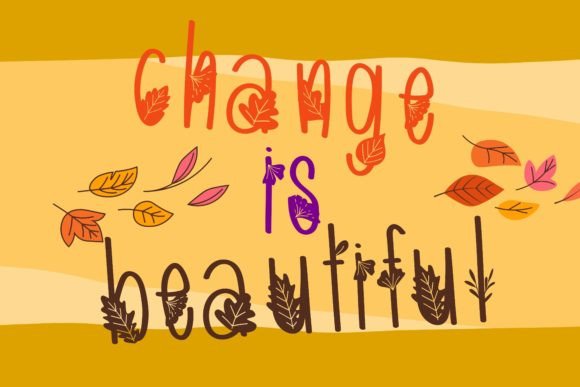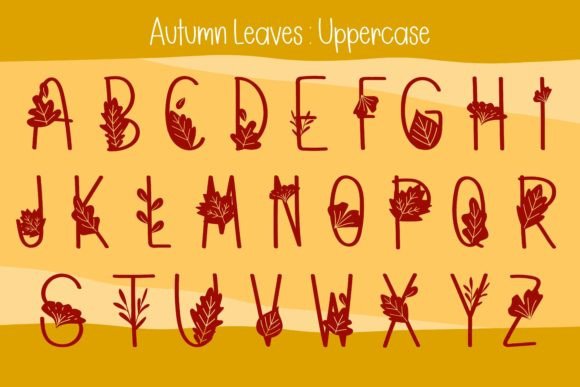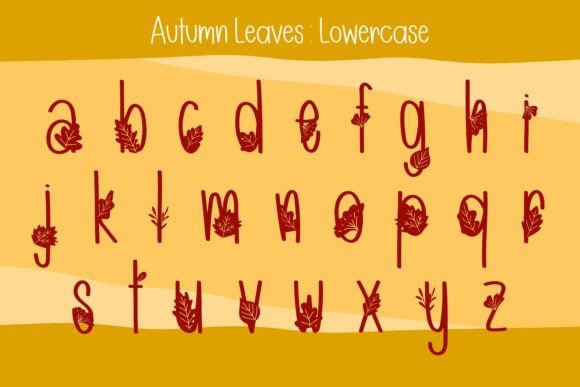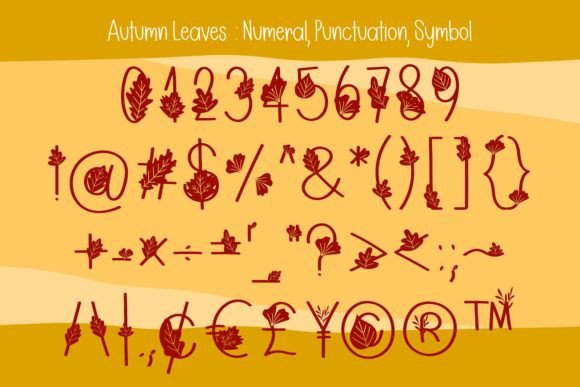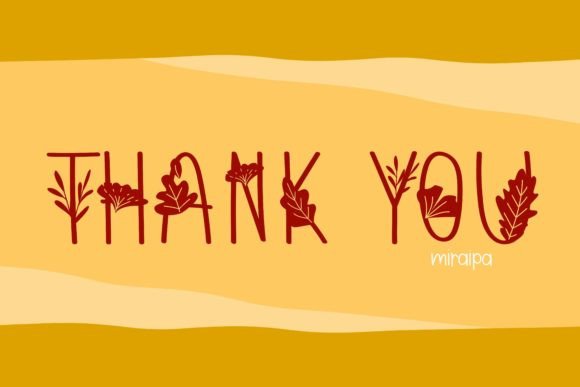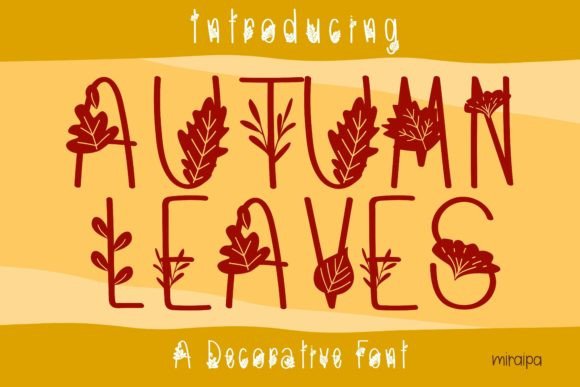
Introducing Autumn Leaves Font: Add a Touch of Warmth to Your Designs
As the seasons change and autumn arrives, designers and crafters are on the lookout for fonts that capture the cozy, warm, and inviting spirit of the season. If you’re searching for a font that embodies the essence of autumn, look no further than the Autumn Leaves Font. This lovely decorative font is perfect for a wide range of design projects, from wedding invitations and back-to-school materials to party decorations, posters, blogs, clothing, and social media posts.
What Makes Autumn Leaves Font So Special?
Autumn Leaves Font is a beautifully crafted decorative font that features intricate, leaf-inspired designs. Its unique and charming style makes it an excellent choice for designers and crafters who want to add a personal touch to their work. The font’s autumnal theme is perfect for creating seasonal designs that evoke feelings of coziness, warmth, and nostalgia.
Uses for Autumn Leaves Font
The versatility of Autumn Leaves Font makes it an excellent addition to any designer’s or crafter’s font library. Here are some ideas for using this lovely font:
- Autumn-related designs: Create stunning autumn-themed posters, social media posts, or blog headers that showcase the beauty of the season.
- Wedding invitations: Add a touch of romance and whimsy to your wedding invitations, save-the-date cards, or thank-you notes.
- Back-to-school projects: Create eye-catching posters, flyers, or worksheets for students that celebrate the start of a new school year.
- Party decorations: Use Autumn Leaves Font to create festive party decorations, such as banners, garlands, or cupcake toppers.
- Clothing and accessories: Design custom t-shirts, hoodies, or tote bags with a seasonal twist.
- Greeting cards and social media posts: Add a personal touch to your greeting cards, social media posts, or email newsletters with this charming font.
Why Choose Autumn Leaves Font?
Autumn Leaves Font offers several benefits that make it an excellent choice for designers and crafters:
- Unique and eye-catching design: The font’s intricate, leaf-inspired designs make it stand out from more traditional fonts.
- Versatility: Use Autumn Leaves Font for a wide range of design projects, from digital designs to print materials.
- High-quality design: The font is carefully crafted to ensure high-quality design and crisp lines.
Tips for Using Autumn Leaves Font
Here are some tips for getting the most out of Autumn Leaves Font:
- Experiment with different colors: Try pairing the font with warm, autumnal colors like orange, yellow, and red.
- Mix and match with other fonts: Combine Autumn Leaves Font with other fonts to create a unique and eye-catching design.
- Use it for headings and titles: The font’s decorative design makes it perfect for headings and titles.
Autumn Leaves Font is a beautiful and versatile decorative font that’s perfect for designers and crafters who want to add a touch of warmth and coziness to their designs. With its unique, leaf-inspired design and wide range of uses, this font is an excellent addition to any design library. Download Autumn Leaves Font today and bring your DIY projects to life!